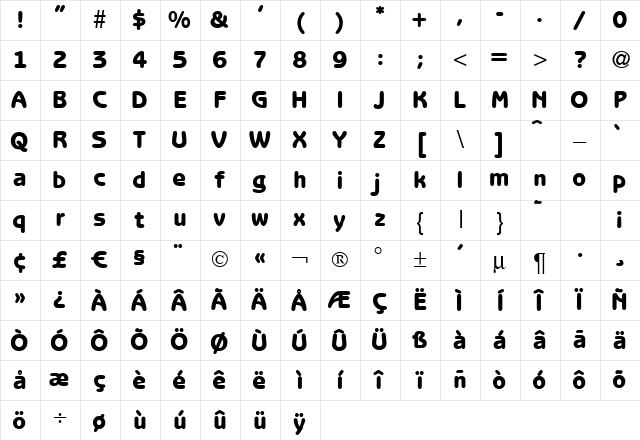
B691-Sans-Heavy Regular
Design Context for B691-Sans-Heavy
B691-Sans-Heavy is a composed and adaptable typeface that performs quietly and consistently across a wide range of design contexts.
Pro Tip: Use B691-Sans-Heavy in both headline and body roles to test its range before committing to a single application.